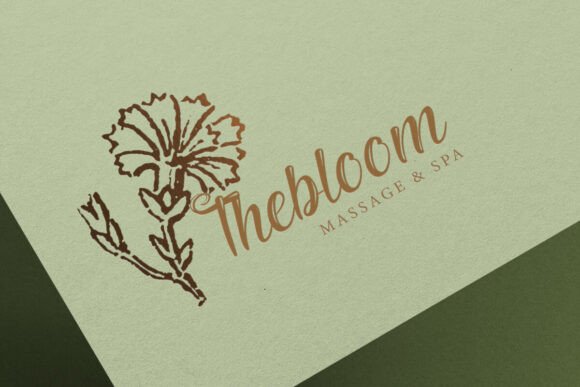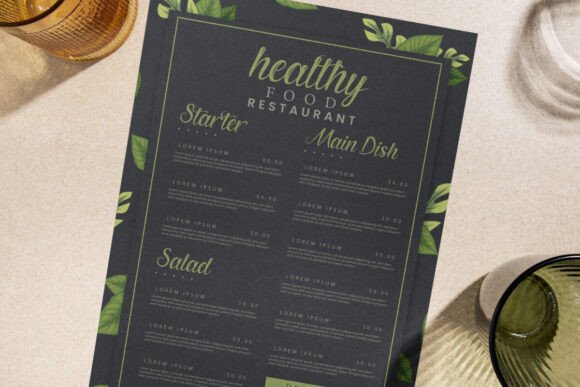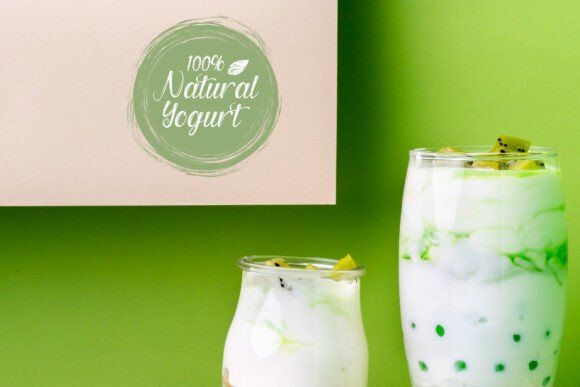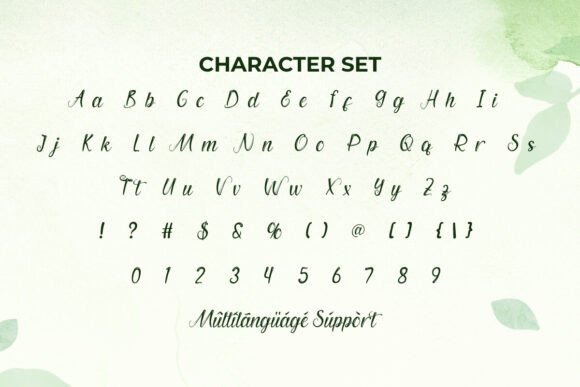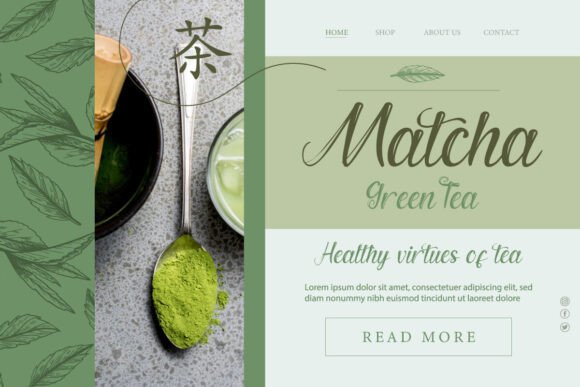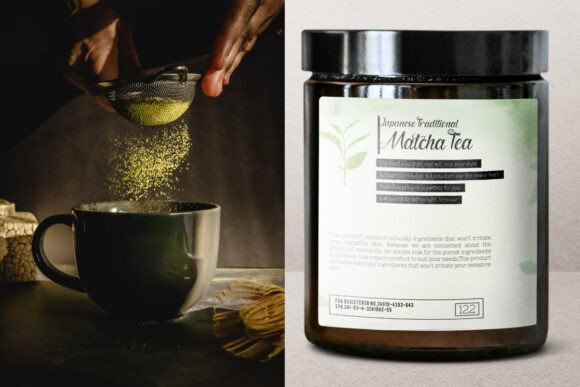
Introduction to Matcha Milk Font
Matcha Milk Font is a beautiful, textured, and authentic calligraphy script font inspired by a delicious drink.
It will make any appearance in your design feel unique, such as advertisements, billboards, book covers, branding projects, brochure, business cards, cover, flyer, greeting cards, header, headline, invitation, label, logos, poster, product designs, quotes, restaurant menu, screen print, stationery, title, watermarks, website, wedding designs, etc Matcha Milk Font is a natural and modern calligraphy font created with heart to provide a handmade feel for any business.